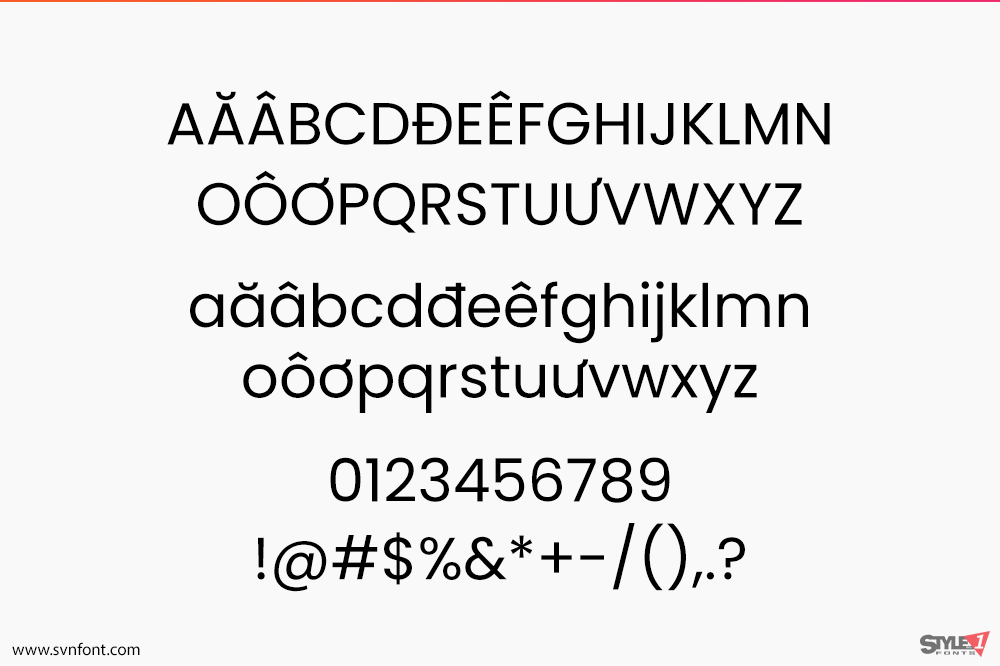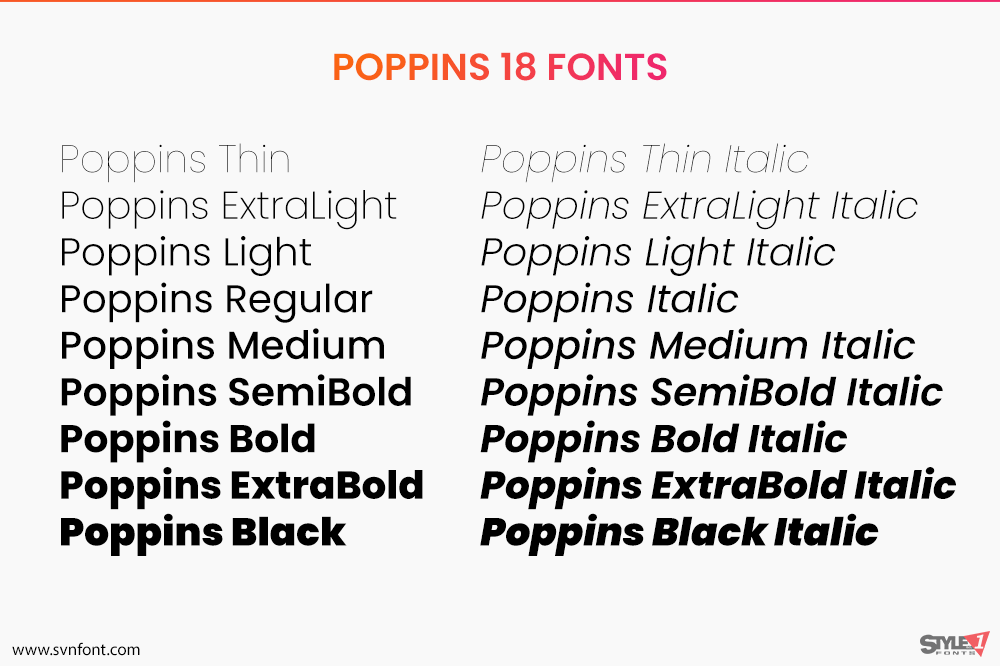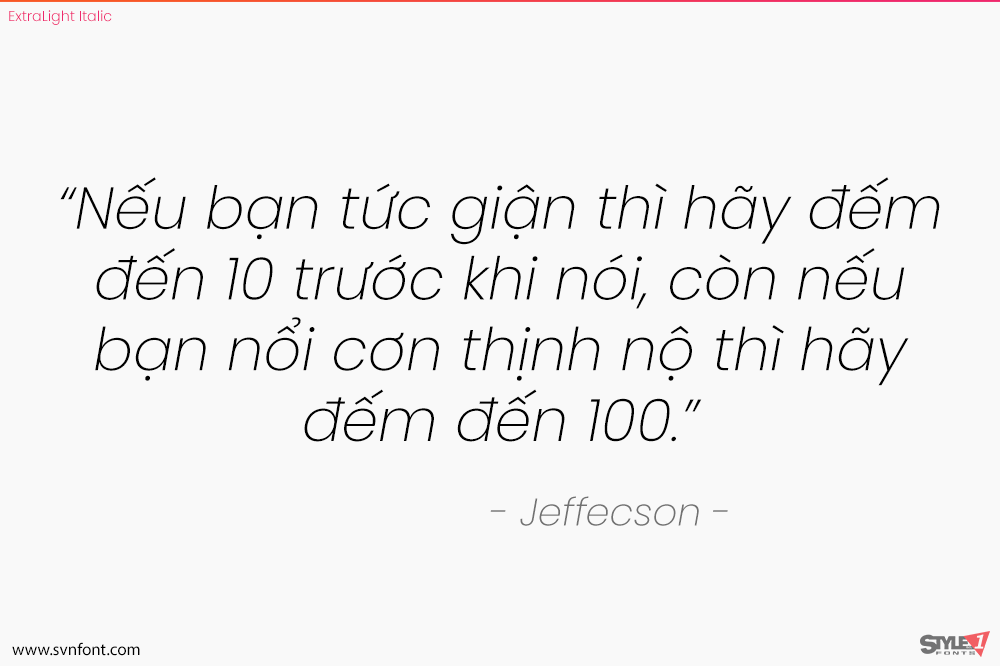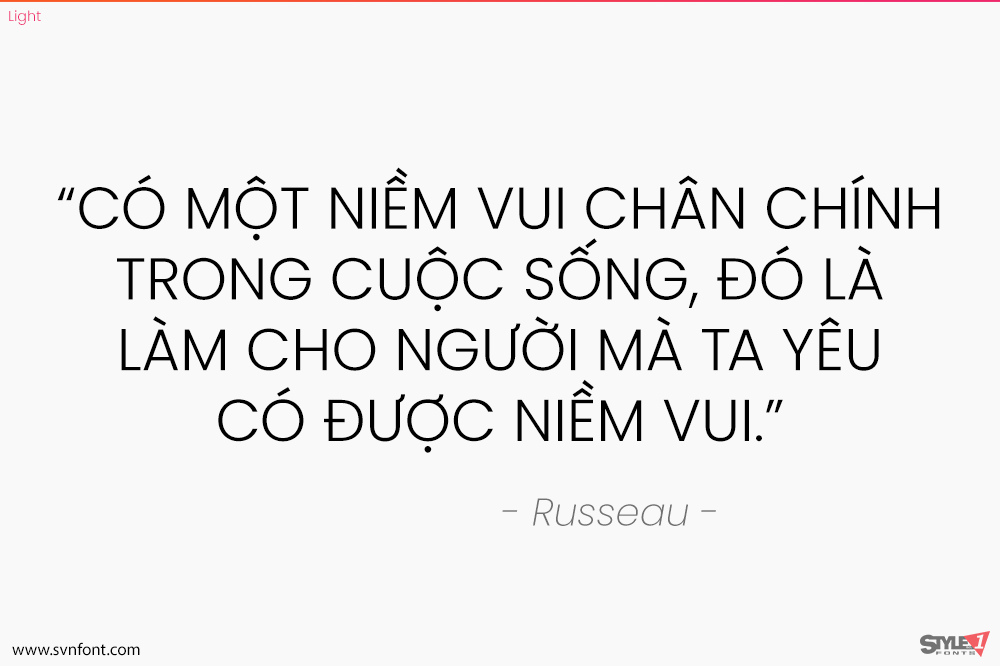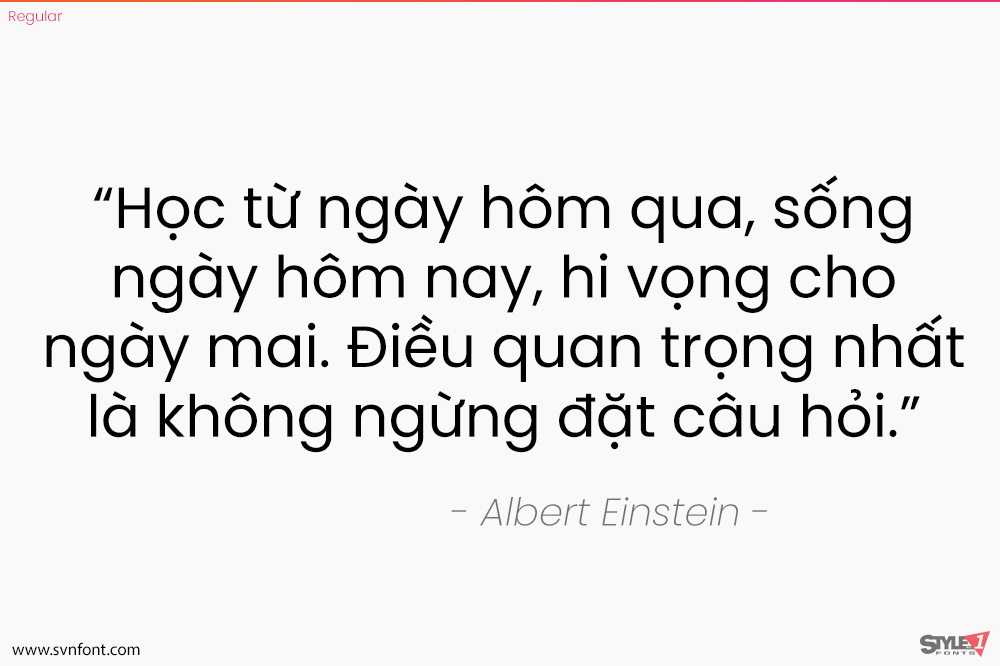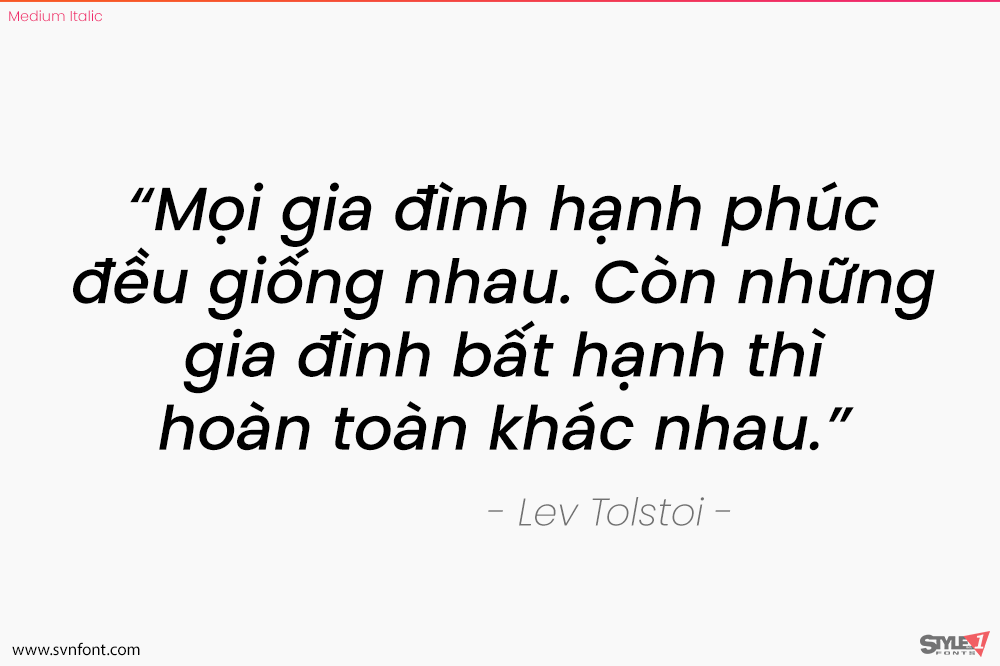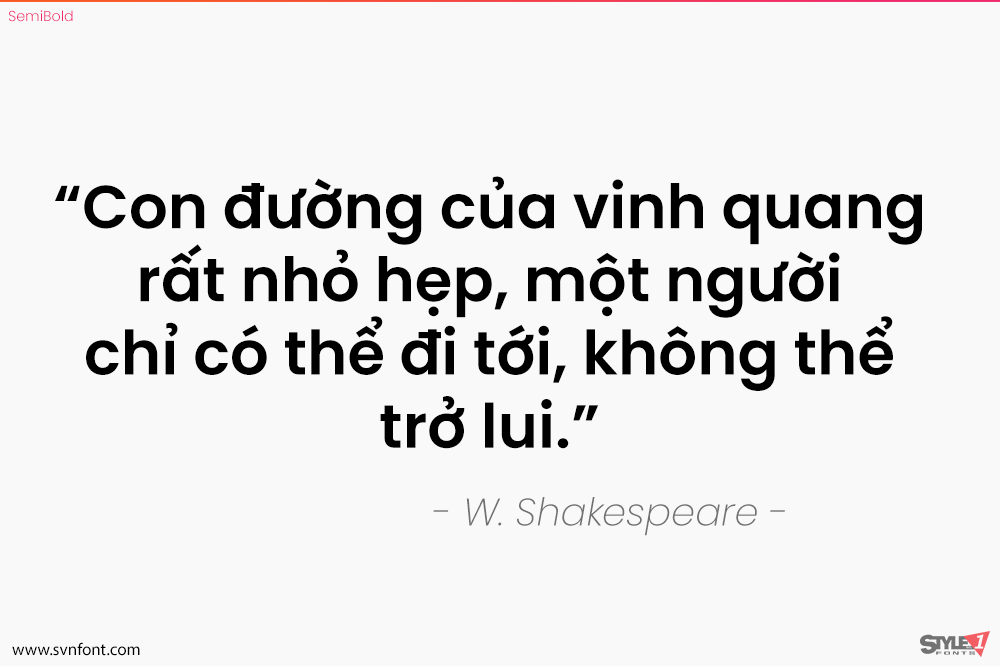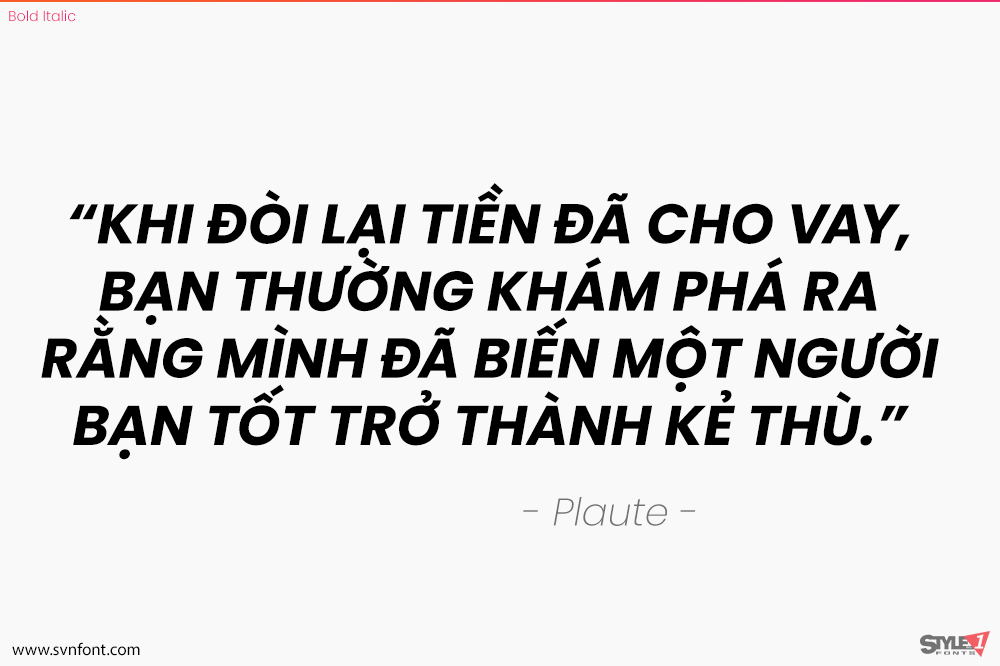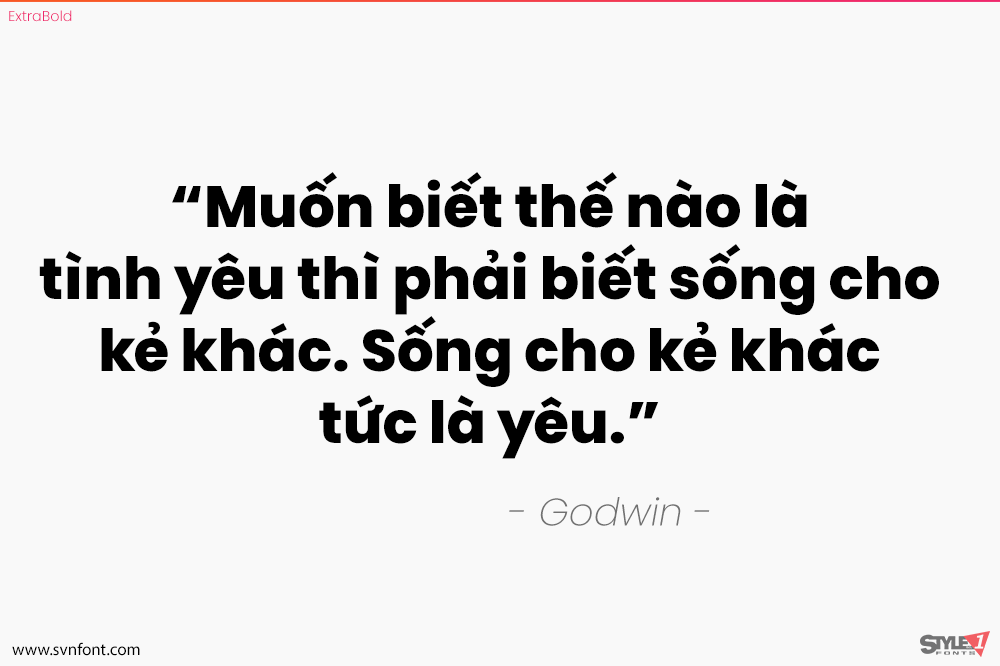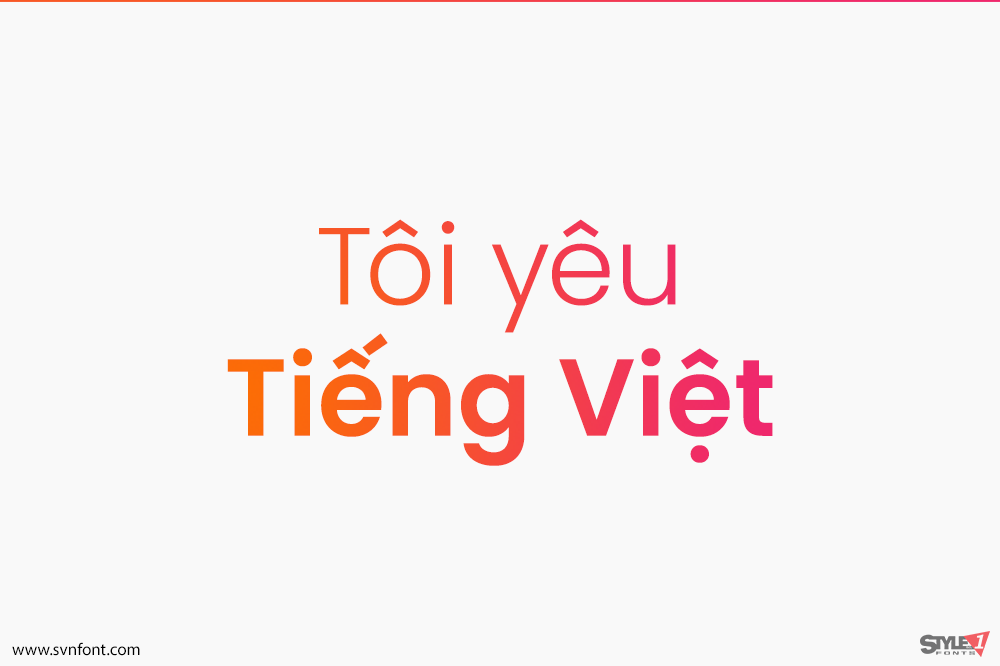
[Việt hóa] SVN-Poppins (18 fonts)
Geometric sans serif typefaces have been a popular design tool ever since these actors took to the world’s stage. Poppins is one of the new comers to this long tradition. With support for the Devanagari and Latin writing systems, it is an internationalist take on the genre. Many of the Latin glyphs (such as the ampersand) are more constructed and rationalist than is typical. The Devanagari design is particularly new, and is the first ever Devanagari typeface with a range of weights in this genre. Just like the Latin, the Devanagari is based on pure geometry, particularly circles. Each letterform is nearly monolinear, with optical corrections applied to stroke joints where necessary to maintain an even typographic color. The Devanagari base character height and the Latin ascender height are equal; Latin capital letters are shorter than the Devanagari characters, and the Latin x-height is set rather high.
Nhà thiết kế: Ninad Kale (Devanagari), Jonny Pinhorn (Latin)
Nhà phát hành: Indian Type Foundry
Việt hóa: STYLEno.1 Fonts